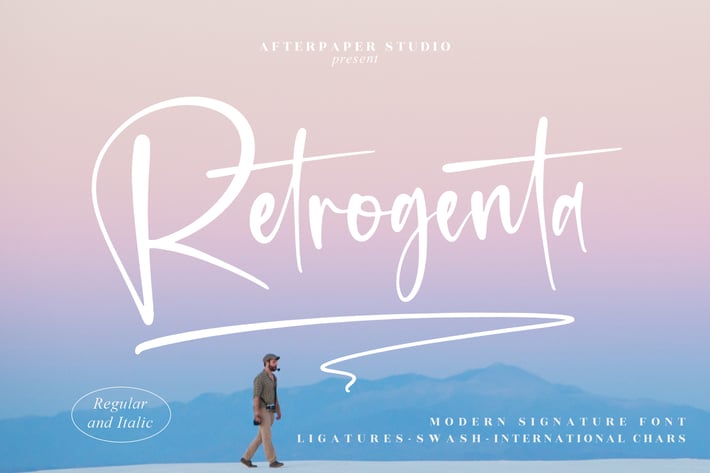
Retrogenta Modern Signature Font
Retrogenta is a modern signature font with a soft, nostalgic vibe — smooth, flowing, and effortlessly personal. Inspired by handwritten notes and calm moments, it blends elegance with a relaxed, human touch, making your designs feel warm, expressive, and timeless.
Modern signature style with smooth flowing strokes
Natural handwritten feel with gentle swashes
Elegant yet relaxed character
Clean readability with expressive details
Balanced look for both personal and professional use
Personal branding & signature logos
Lifestyle, travel, and creative projects
Social media quotes & story highlights
Editorial layouts & mood boards
Invitations, stationery, and packaging
Soft, nostalgic, and quietly confident — Retrogenta captures handwriting with a modern soul.*